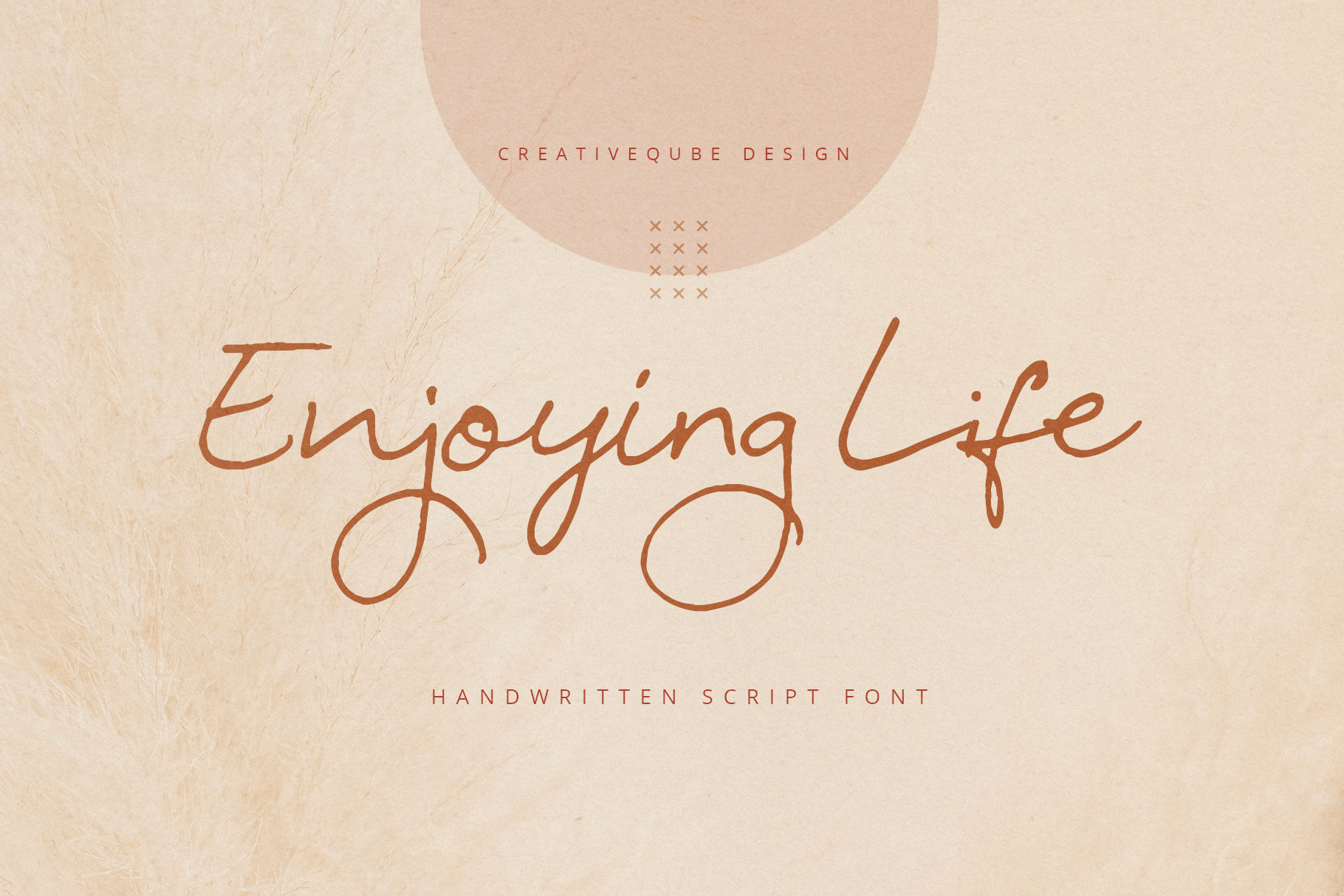
Enjoying Life Script Font
Introducing Enjoying Life Script Font
This natural relaxed script font is the perfect look for so many applications! Use it for logos, advertising, weddings, invites, posters, quotes, blogs, social media and so much more.
The script includes unique glyph pairs to create that awesome relaxed natural hand written look, plus a full set of lowercase alternates.